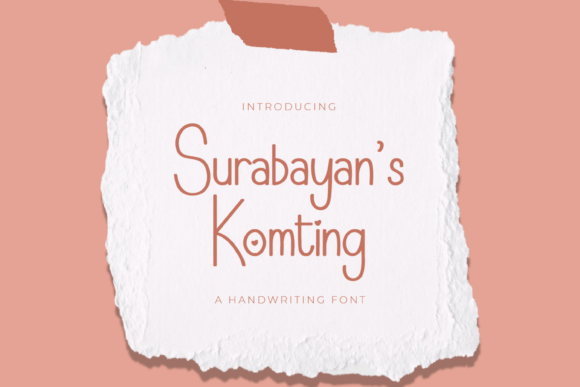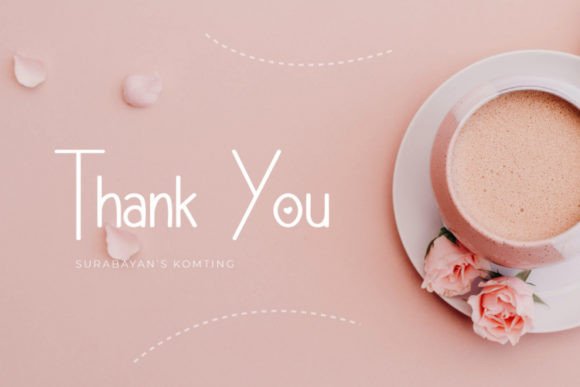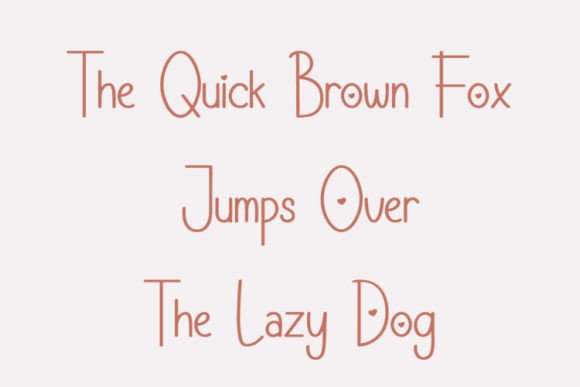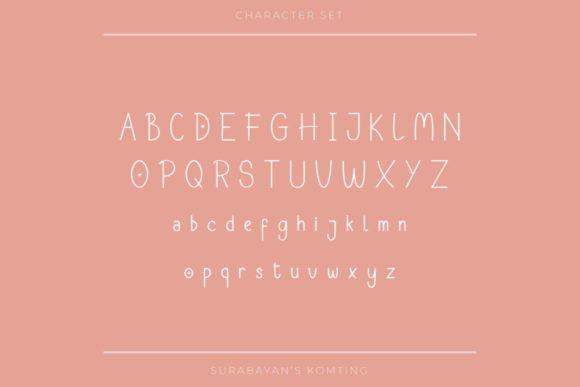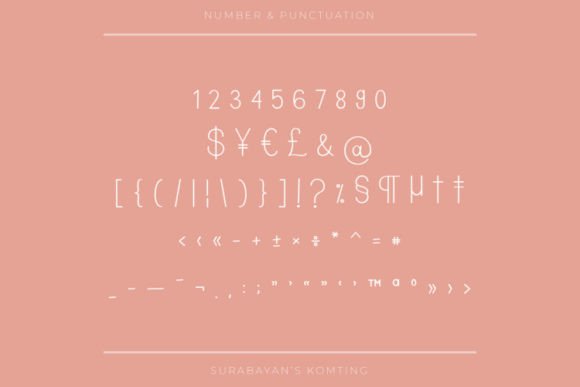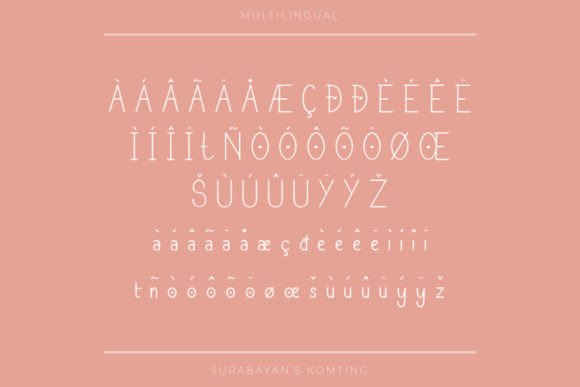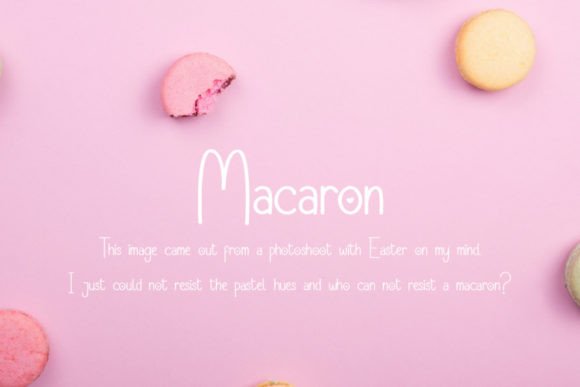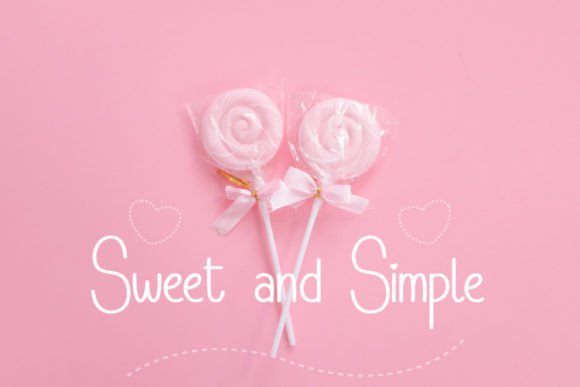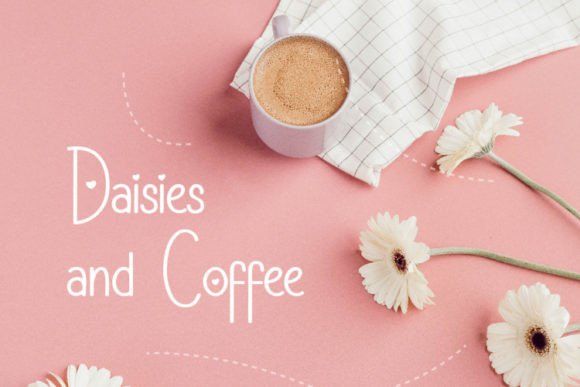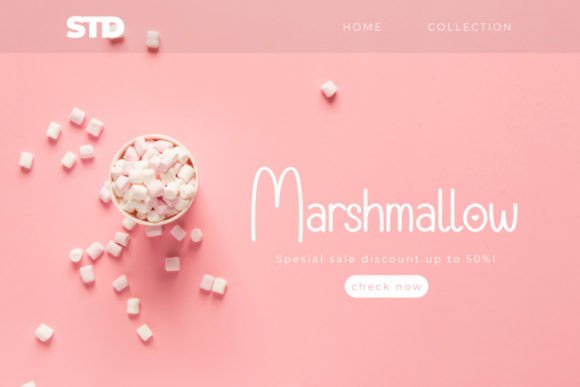
Surabayan’s Komting Font
“Surabayan’s Komting” is described as a fun and casual handwritten font, designed to infuse a lively and informal vibe into your creative ideas. Adding this font to your projects can bring them to life with its playful and casual characteristics.
The fun and casual nature of “Surabayan’s Komting” makes it suitable for a variety of creative applications. Whether you’re working on social media graphics, posters, invitations, or any other design project, this font injects a sense of liveliness and informality.
The handwritten style of “Surabayan’s Komting” adds a personal touch to your designs, making them feel more authentic and approachable. It’s the kind of font that can convey a friendly and relaxed atmosphere.
Incorporating “Surabayan’s Komting” into your most creative ideas allows you to experiment with its playful elements, creating designs that are both visually appealing and engaging.
In summary, “Surabayan’s Komting” is a fun and casual handwritten font that can add a lively and informal twist to your creative projects. Its playful nature makes it well-suited for a variety of design contexts where a friendly and approachable aesthetic is desired.